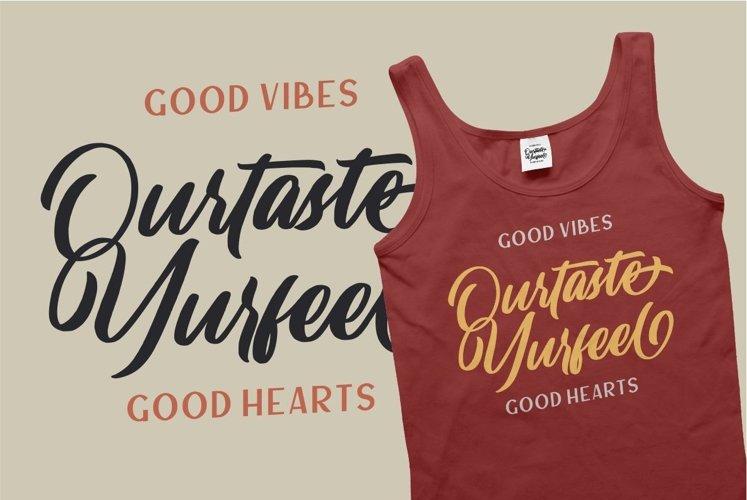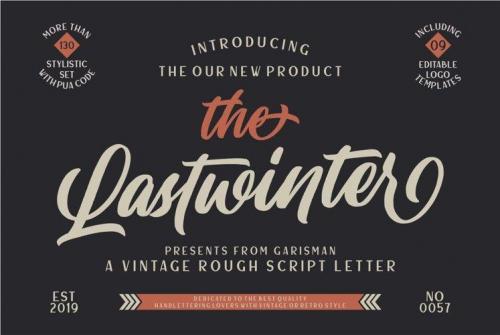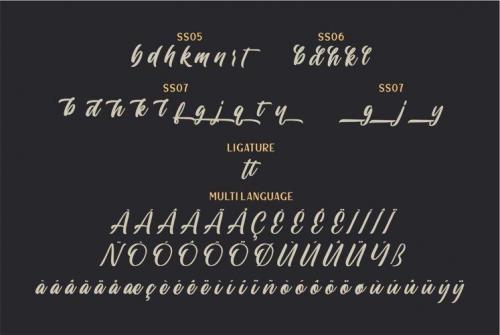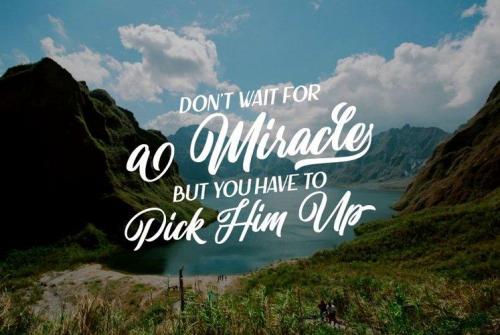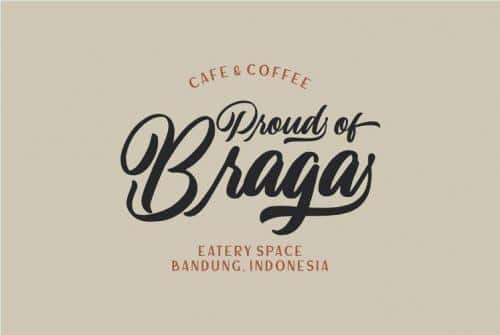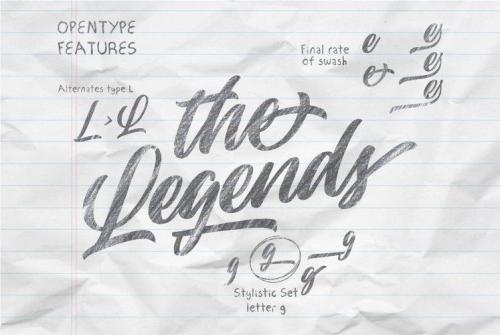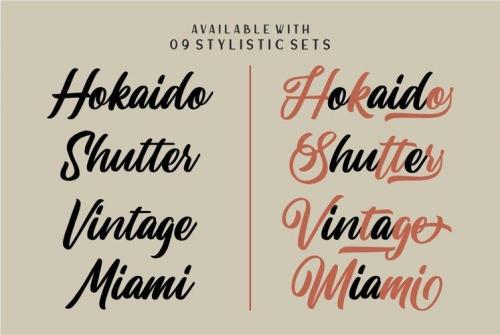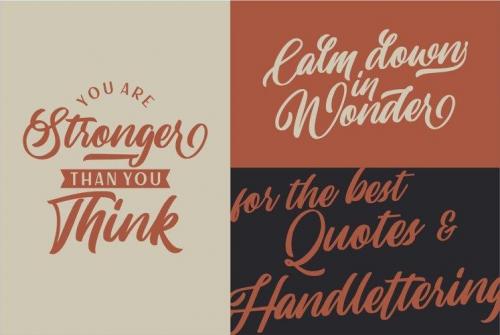
The Lastwinter comes from hand scratches to get natural and natural writing. With the main vintage theme it will be very interesting if added with various kinds of Alternates (Uppercase) and also 8 kinds of Stylistic Sets in Lowercase.
Lastwinter is very suitable for use in various media such as; packaging, logo, label, poster, shirt design, quote of wisdom, handlettering, typography and many other media.
- Designer: Garisman Studio